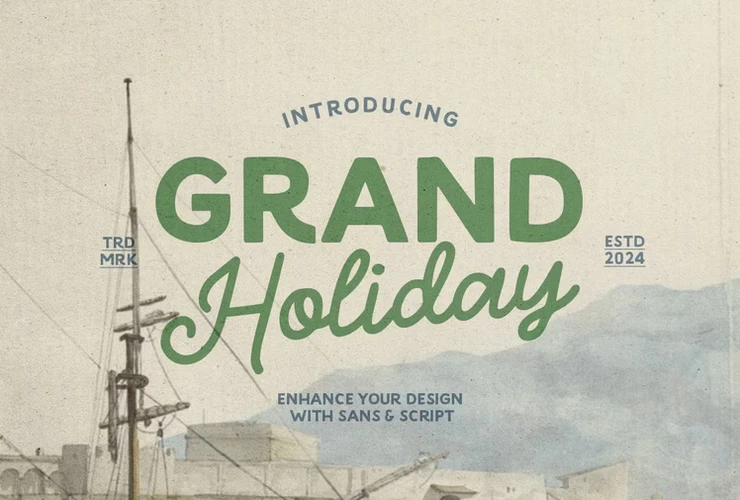
Explore New Adventures with Grand Holiday – The Perfect Travel Font Duo
Grand Holiday is a versatile travel font duo that captures the spirit of adventure and the great outdoors. This unique combination of minimalist sans and monoline script fonts is designed to elevate your creative projects, from posters and book covers to logos, branding, and inspirational quotes. Whether you’re designing for a travel-themed project or simply looking to add a touch of wanderlust to your work, Grand Holiday is the perfect choice.
Why Choose Grand Holiday?
1. Travel-Inspired DesignGrand Holiday is inspired by the excitement and freedom of travel. The minimalist sans font provides a clean and modern look, while the monoline script adds a personal, hand-lettered touch. Together, they create a harmonious balance that evokes the beauty of exploration and adventure.
2. Versatile ApplicationsThis font duo is ideal for a wide range of creative projects. Whether you’re designing a travel poster, crafting a book cover, or developing a brand identity, Grand Holiday’s versatile style fits seamlessly into any design with an outdoor or adventure theme.
3. Handcrafted AestheticThe monoline script in Grand Holiday is crafted with a hand-lettered style, giving your designs a warm and authentic feel. This handcrafted aesthetic makes it perfect for projects that require a personal touch, such as quotes or invitations.
4. Multi-Language SupportGrand Holiday supports multiple languages, making it accessible and versatile for designers working on global projects. This font duo ensures your message can reach a diverse audience, no matter where your adventures take you.
5. Perfect for Adventure ThemesWhether you’re creating a logo for a travel blog, designing an adventurous book cover, or crafting an inspirational quote for social media, Grand Holiday’s travel-inspired design enhances the theme and adds a sense of wanderlust to your work.
Ideal For:
Travel Posters: Capture the spirit of adventure with Grand Holiday’s travel-inspired fonts.
Book Covers: Design captivating book covers that resonate with themes of exploration and discovery.
Logos & Branding: Create memorable logos and brand identities that reflect the excitement of travel and the outdoors.
Quotes & Invitations: Add a personal, handcrafted touch to quotes, invitations, and other creative projects.